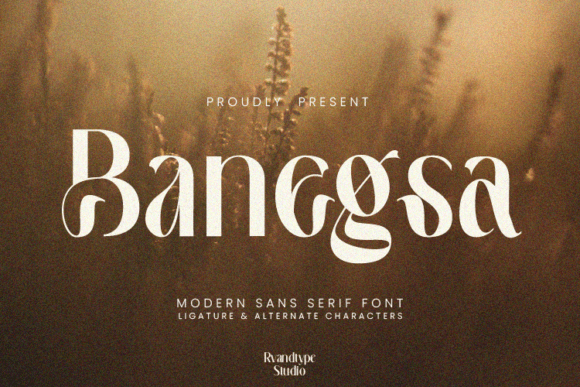
Unleash the Power of Banegsa Font: Elevate Your Designs with a Modern and Stylish Sans Serif Masterpiece
In a world of digital creation, where every visual element holds immense significance, typography reigns supreme. Discover Banegsa, the modern and stylish sans serif font that will revolutionize your design journey. Created by the visionary Rvandtype, Banegsa is a typographic marvel designed to elevate your creations to new heights of elegance and sophistication.
With its clean and crisp lines, Banegsa exudes an aura of timeless beauty. Its meticulously crafted characters are engineered to provide exceptional readability and visual appeal, making it the perfect choice for a wide range of design applications.
Be it logos, branding, invitations, stationery, wedding designs, social media posts, or any other creative endeavor, Banegsa will seamlessly blend with your vision and elevate it to the next level.
Dive into the versatility of Banegsa and witness how a single font can transform your designs into captivating masterpieces. Its modern aesthetic effortlessly complements any design style, adding a touch of sophistication and charm that resonates with audiences.
Embrace the allure of Banegsa and redefine your design language. Let your creativity flourish as you explore the endless possibilities that this font has to offer. Experience the joy of creating stunning visuals that leave a lasting impression, all thanks to the magic of Banegsa.